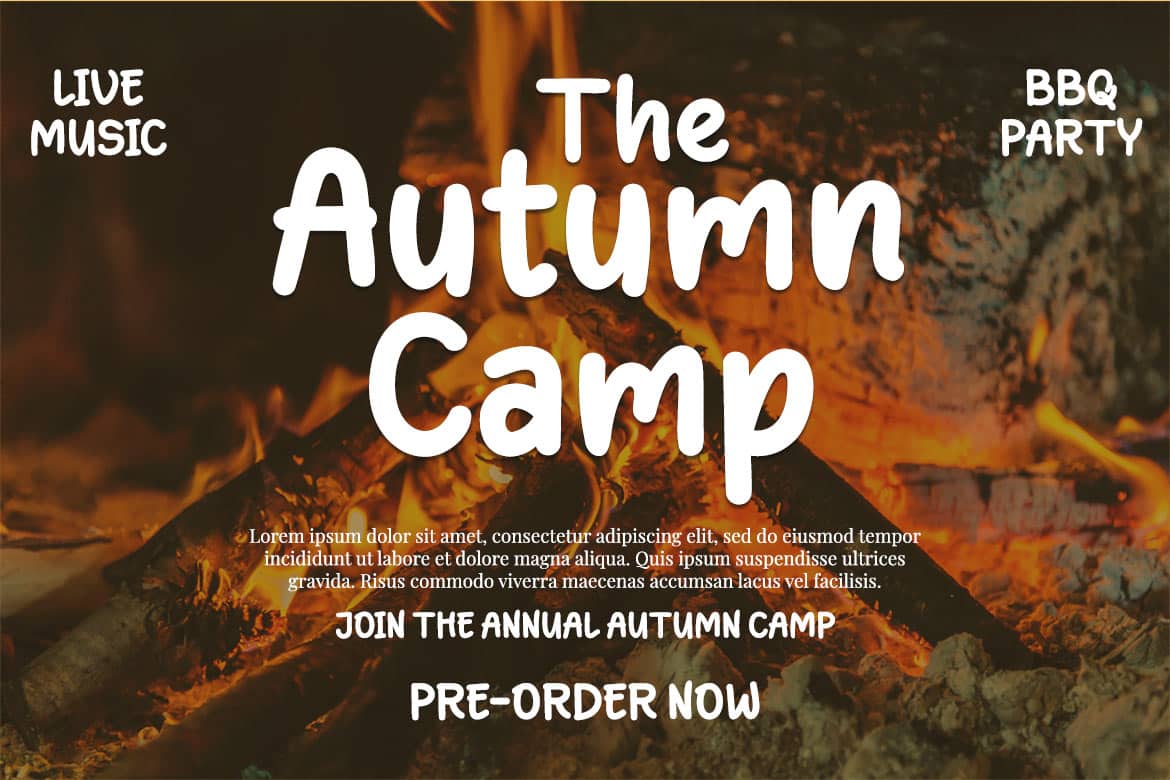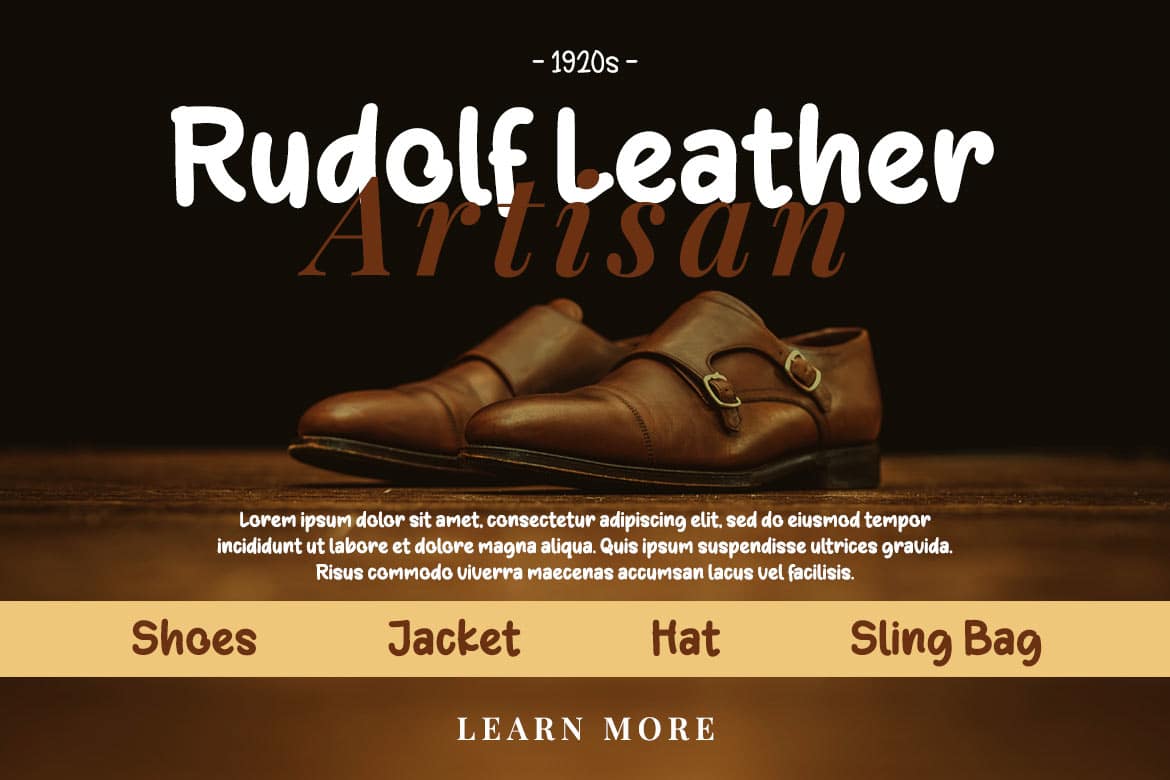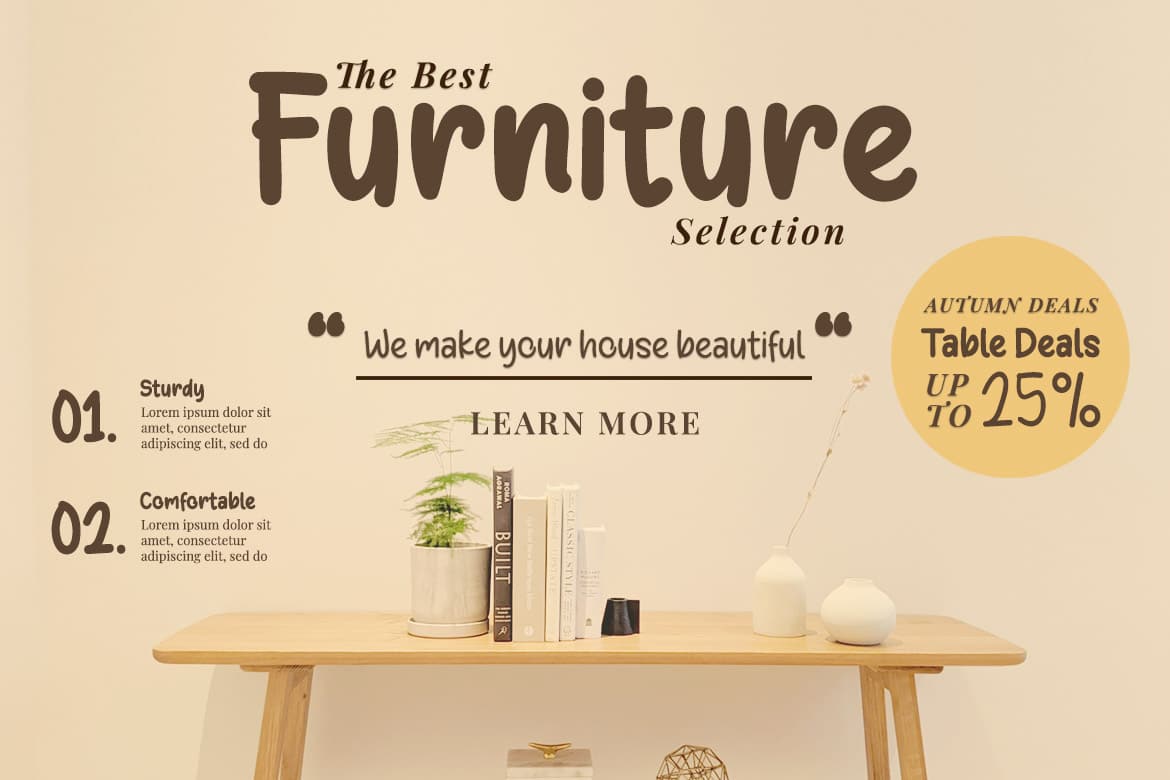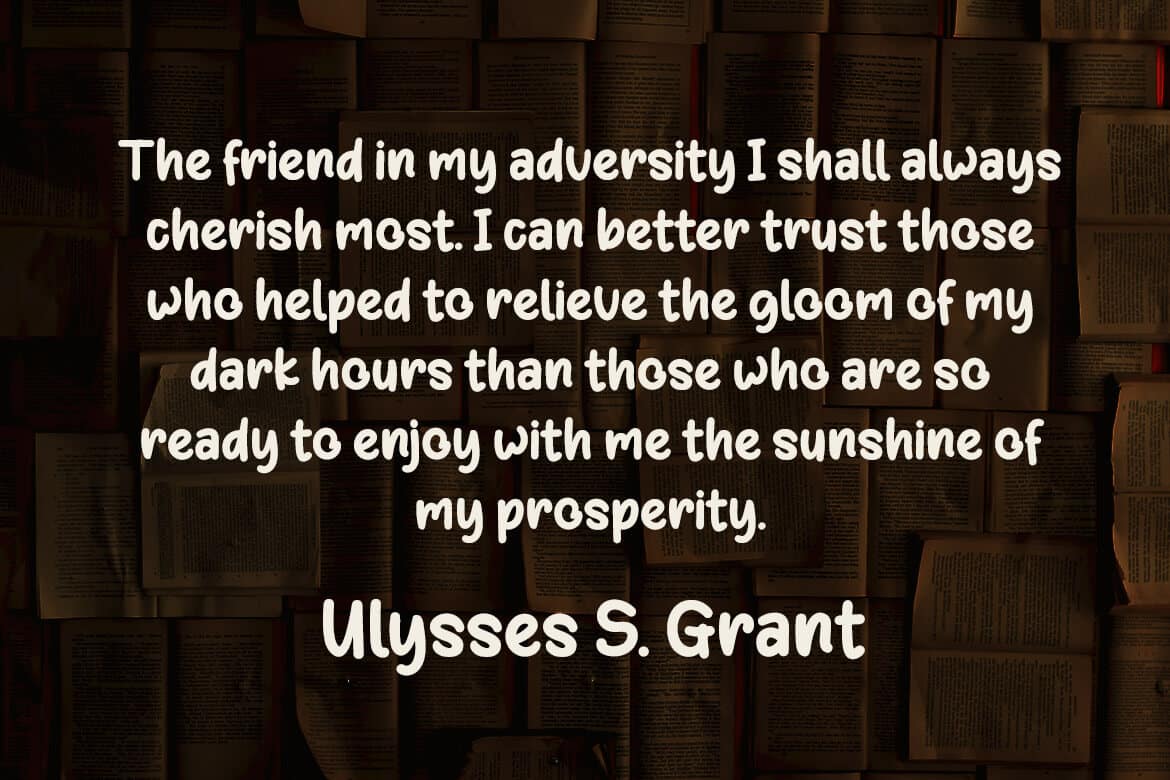
Qandas Font
Qandas is a handwritten font that has been polished to seem neat and professional, but it is also versatile in its application, making it suitable for both official and non-formal applications. If you utilize this typeface on all of your projects, they will stand out.